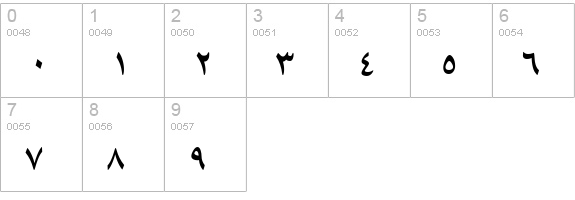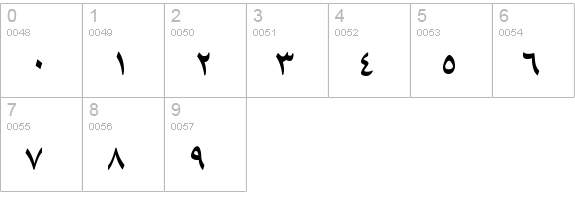
B Lotus Bold Font Details
B Lotus Bold is a strong, high-contrast variant in the B typeface family \xE2\x80\x94 well suited to headlines, attention-grabbing titles, and strong calls-to-action.
B Lotus Bold font is a striking and modern typeface that exudes confidence and elegance. With its bold and eye-catching design, this font is perfect for making a statement in your projects. The clean lines and sharp edges of B Lotus Bold make it ideal for both headers and body text, ensuring readability and visual appeal. What's even better is that B Lotus Bold font is available for free download at FontsMarket.com. This means you can easily access this stylish font to enhance your designs without any cost. Whether you're working on a branding project, website design, or any other creative endeavor, B Lotus Bold font is sure to elevate your work with its unique and sophisticated look. Download B Lotus Bold today and add a touch of modern flair to your projects.